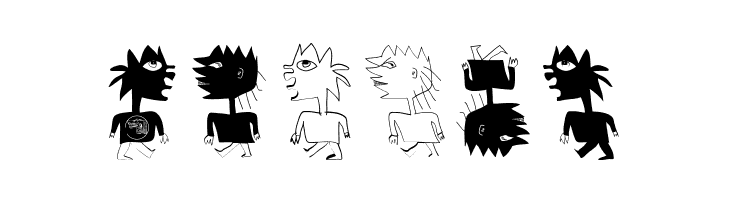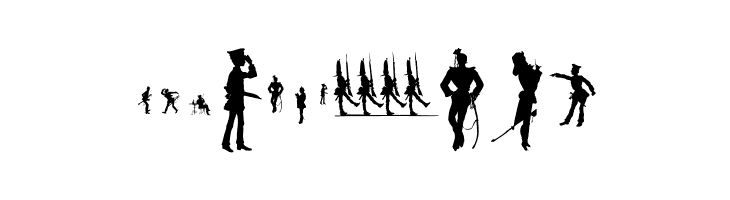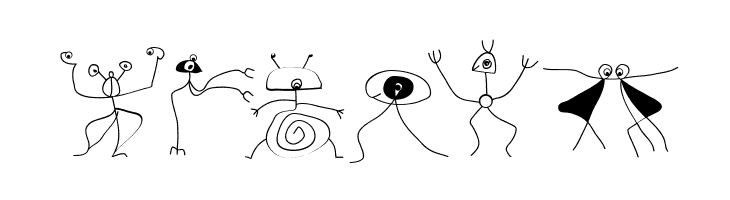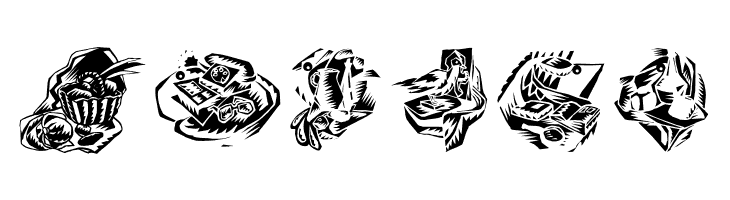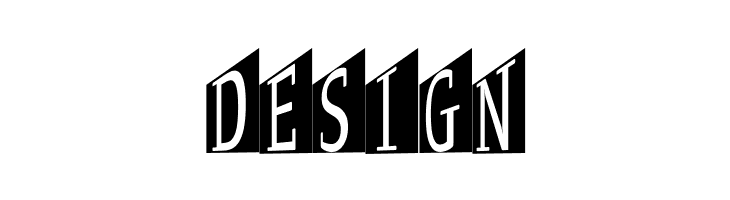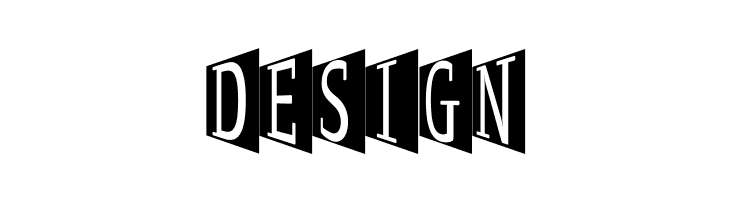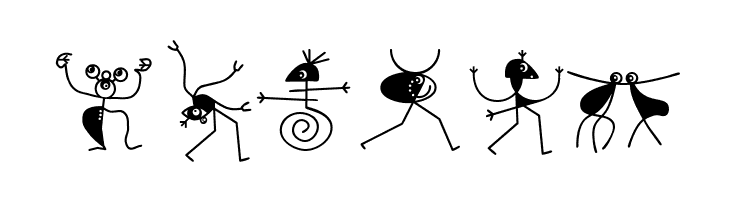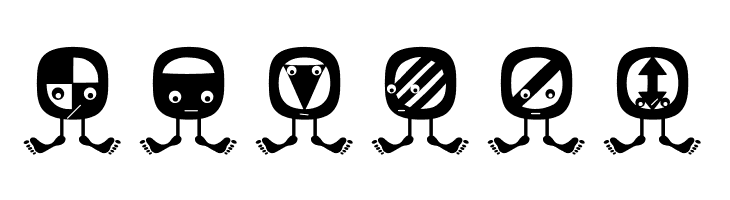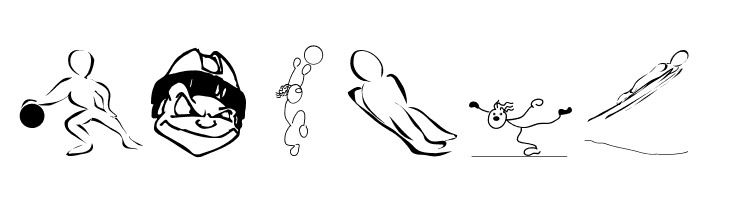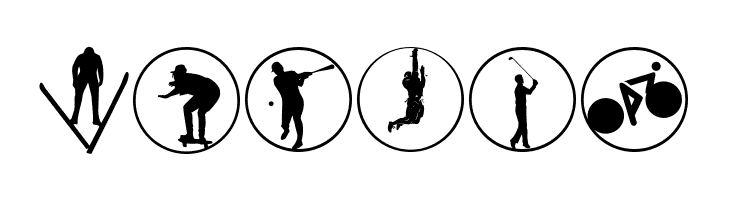
A tall, narrow, and angular font with a modern artistic flair.
Cartoonish, hand-drawn font with energetic, comic character illustrations.
A playful, hand-drawn font with a whimsical and informal style.
A sports-themed pictogram font with athletic silhouettes.
Energetic display font featuring athletic silhouettes as characters.
Cartoon animal sports illustrations with energetic, playful style.
A pictogram font of athletic figures in action.
Cartoonish sports-themed dingbat font with energetic line drawings.
Illustrative depictions of sports training activities.
Playful stick-figure font with expressive, hand-drawn characters.
Whimsical stick-figure font with playful, illustrated characters.
A bold, graffiti-inspired font with sharp, angular lines and dynamic strokes.
A bold, playful font with thick, rounded characters and a strong presence.
A playful, bubble-like font with thick outlines and rounded characters.
An artistic font with abstract, dance-inspired silhouettes forming each character.
A whimsical font featuring intricate animal silhouettes for decorative use.
A bold, three-dimensional serif font with a dynamic, tilted design.
A bold, shadowed font with a modern, three-dimensional style.
A bold, decorative font with a grid-like, three-dimensional design.
A decorative font featuring evolutionary silhouettes within bold, 3D characters.
A playful, decorative font with button-like characters featuring unique expressions.
A bold, high-contrast font with sharp, angular edges and a modern aesthetic.
A bold, high-contrast serif font with a classic yet modern style.
A bold, decorative font with intricate patterns and cut-out shapes.
A monospaced typewriter-style font with a modern twist.
A clean, geometric font with a modern and minimalist design.
A clean, modern font with geometric shapes and uniform stroke width.
A digital, stencil-style font with a retro 8-bit feel.
A bold stencil font with geometric shapes and an industrial, urban style.
A bold stencil font with geometric, block-like characters enclosed in squares.
A bold, stencil-style font with a geometric, industrial aesthetic.
A bold stencil font with geometric shapes and high contrast, perfect for impactful designs.
Silhouette-based font with historical figure illustrations forming each character.
An artistic and decorative font with intricate, abstract designs resembling symbols or emblems.